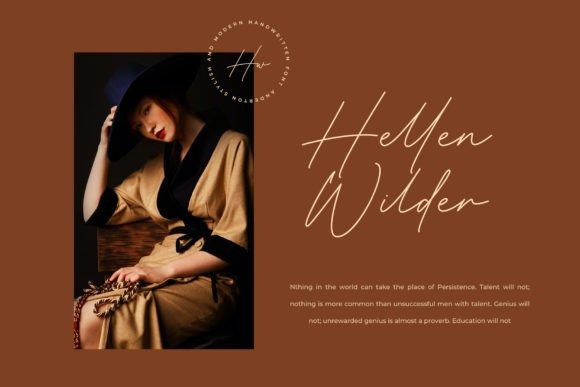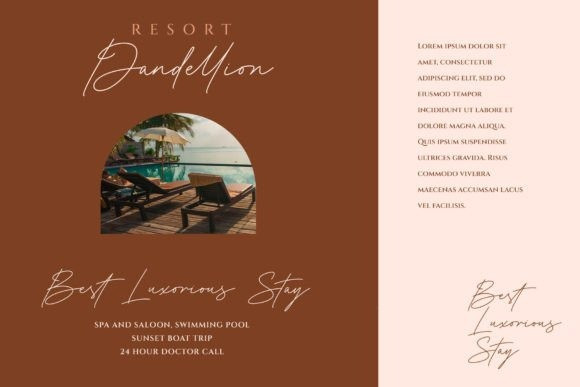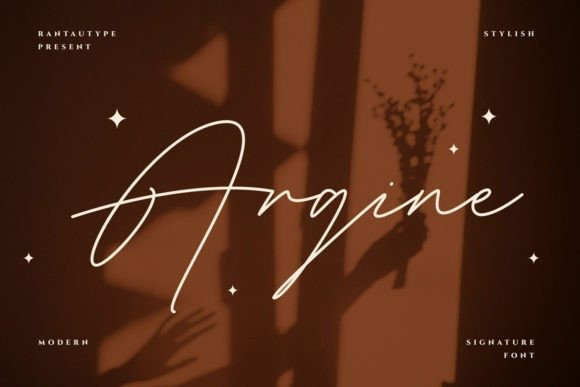
Argine Font
Argine Font is a stylish, elegant script font that embodies timeless sophistication. Its flowing, calligraphic strokes exude grace and refinement, making it perfect for projects that demand a touch of class. Elevate your designs with Argine’s timeless beauty, creating an atmosphere of tasteful elegance and visual allure.